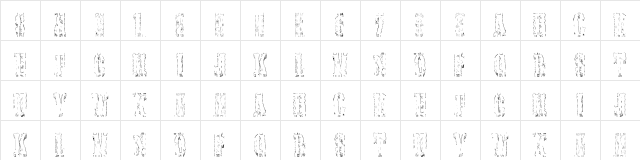
Elbow-SaulWeintraub Regular
Design Context for Elbow-SaulWeintraub Typeface
Elbow-SaulWeintraub is a composed and adaptable typeface that performs quietly and consistently across a wide range of design contexts.